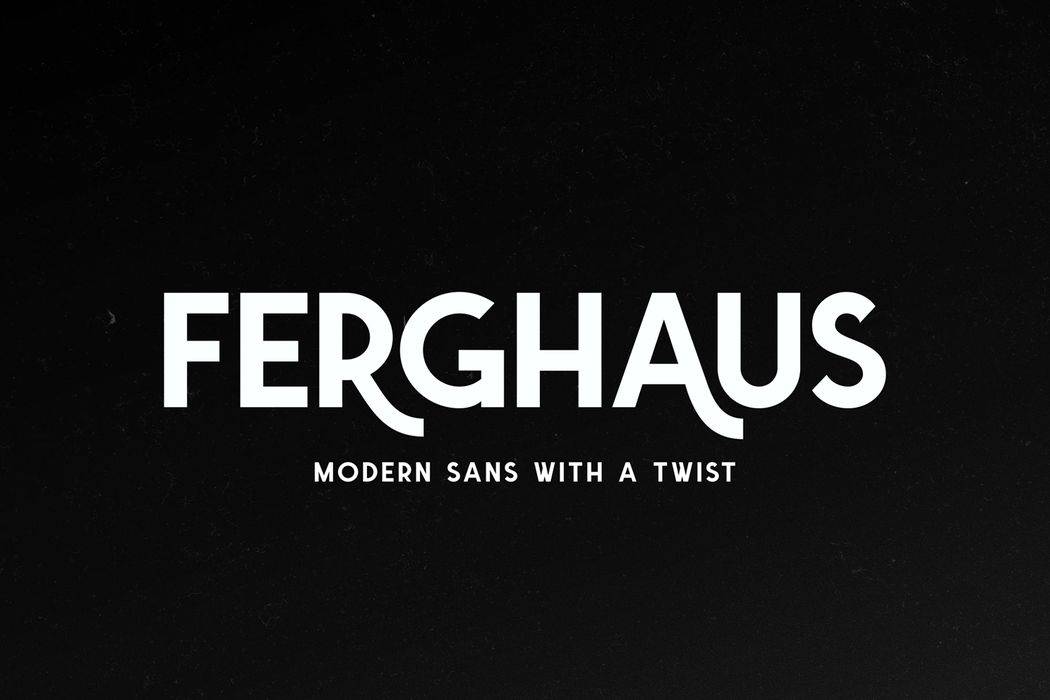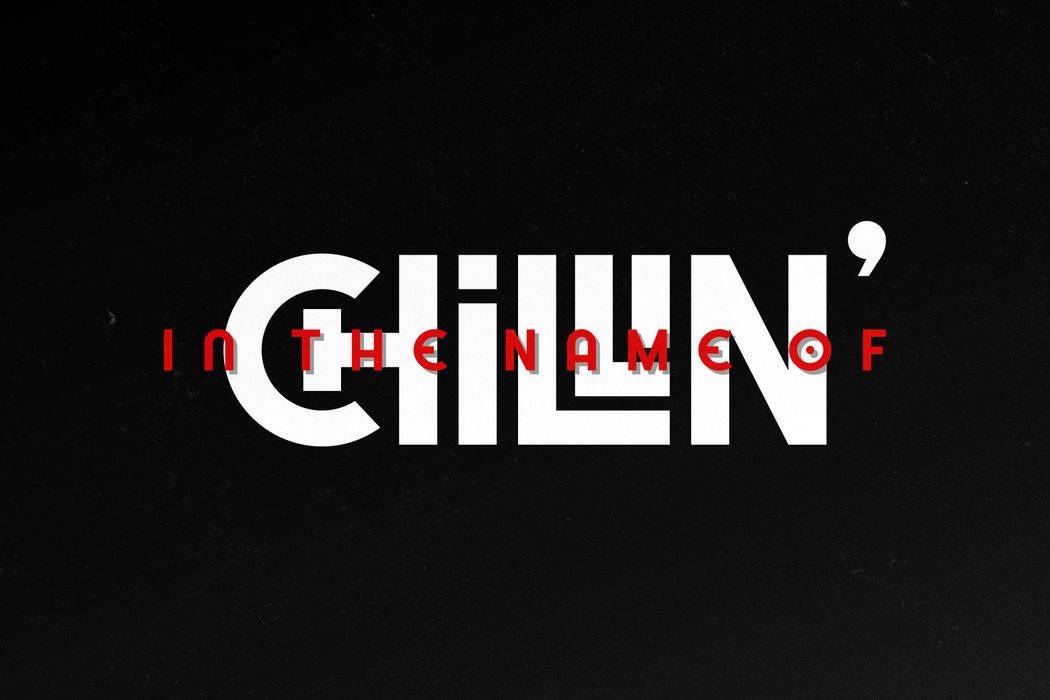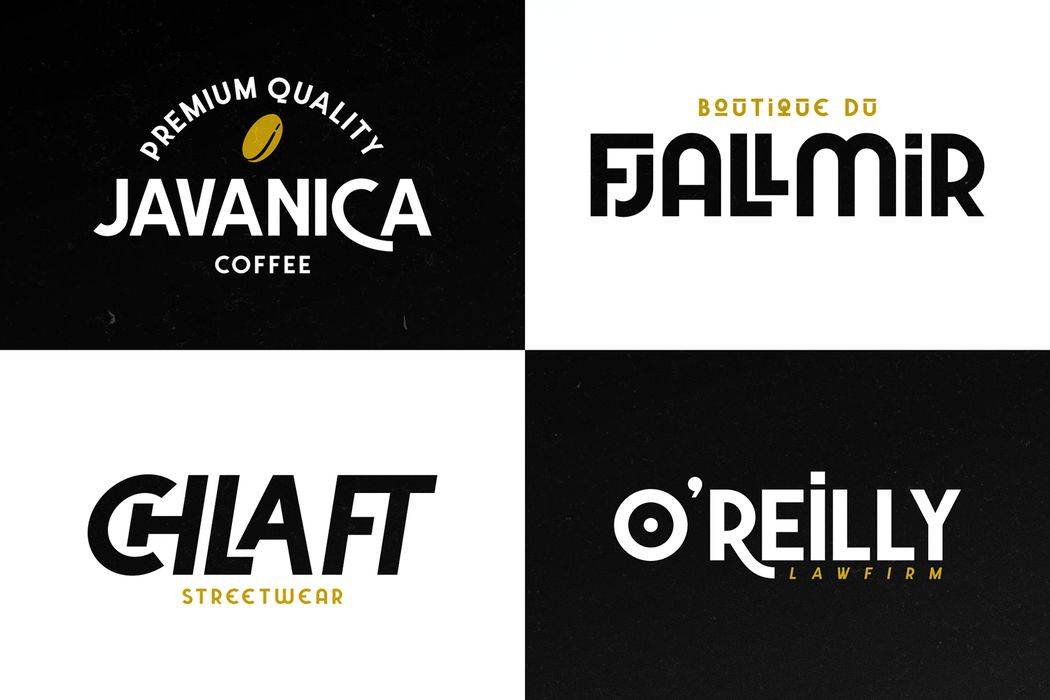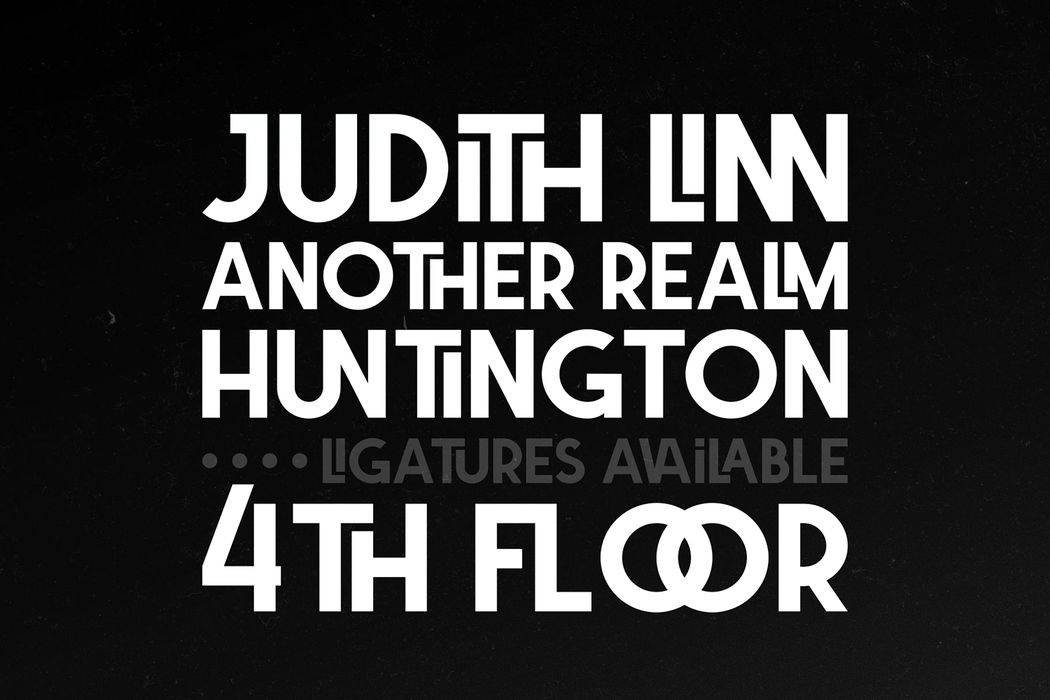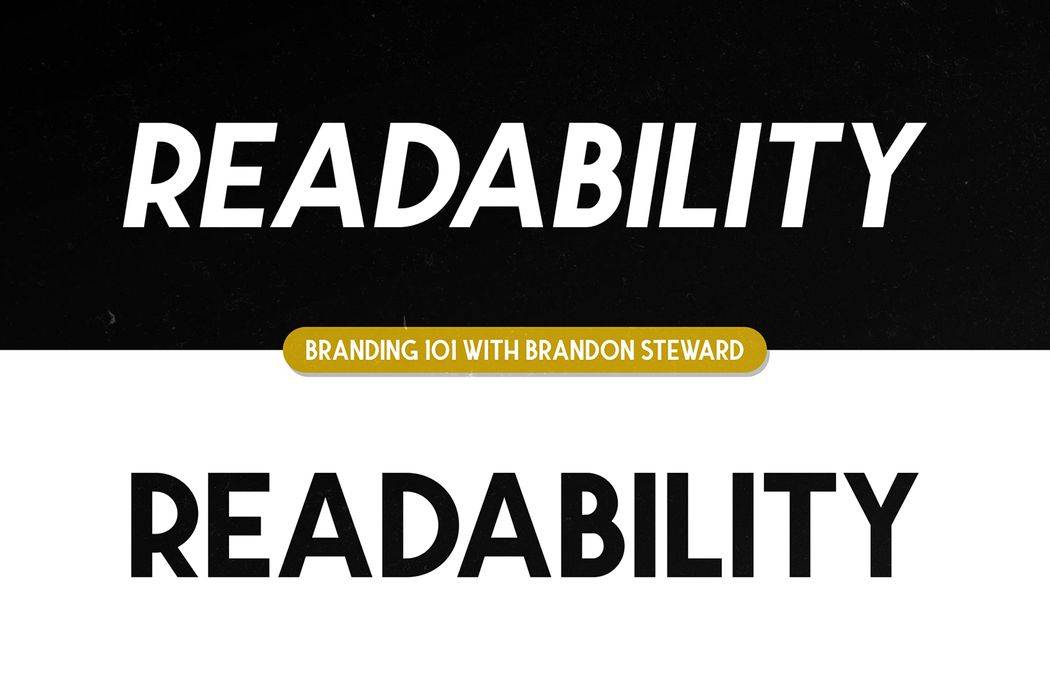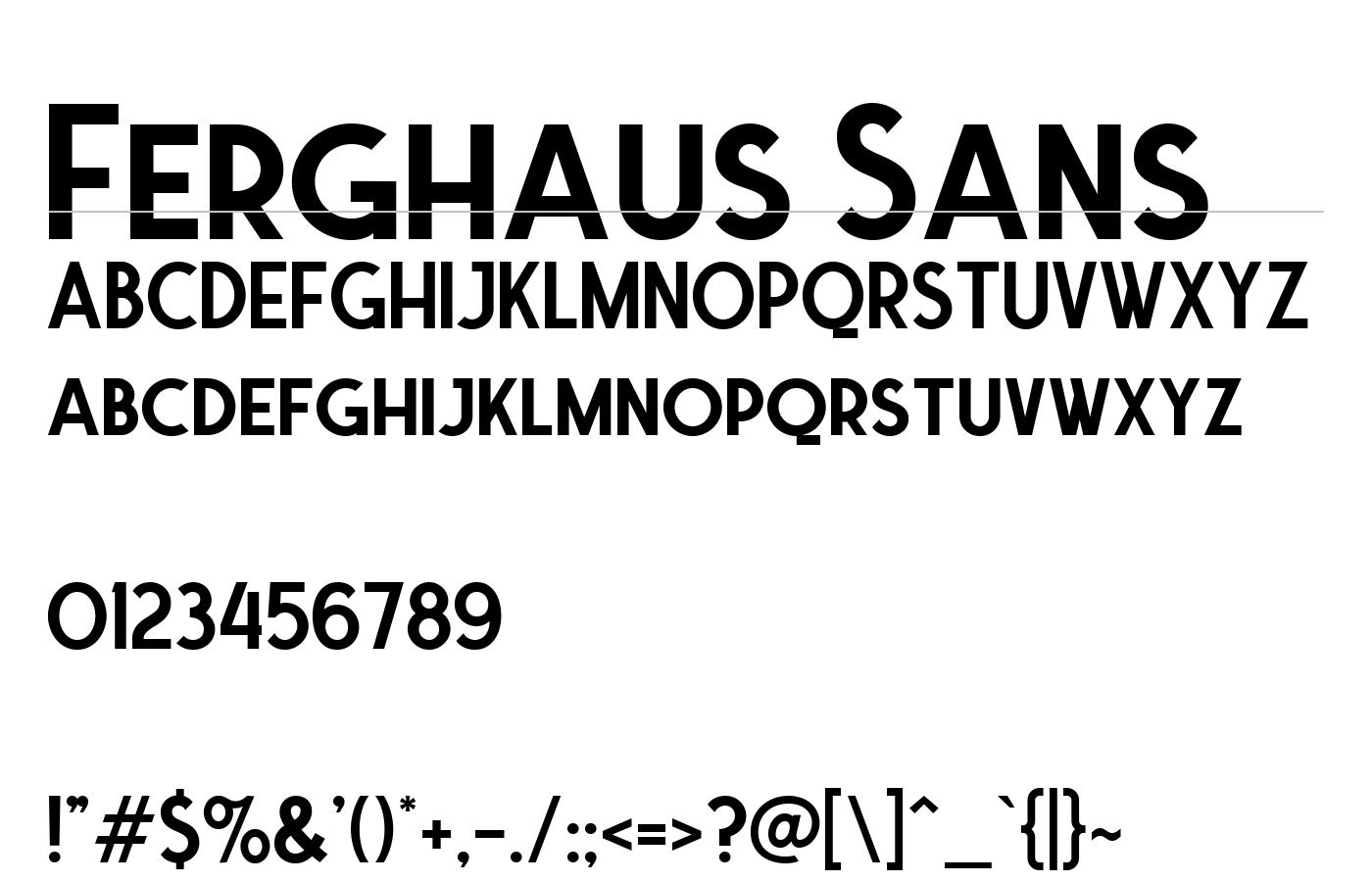
Ferghaus Sans is a clean, bold sans serif font with a modern, geometric feel and strong presence. Its upright, uniform strokes and slightly condensed letterforms make it highly readable and versatile, ideal for headlines, branding, and editorial use where clarity and impact are key. This font’s confident, contemporary style suits professional, tech, or creative projects aiming for a sleek yet approachable tone.
Ferghaus Sans Font
About Ferghaus Sans Font